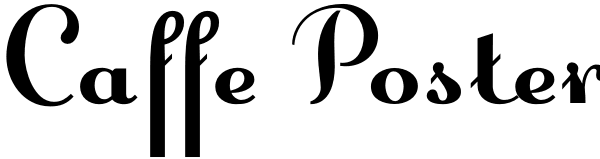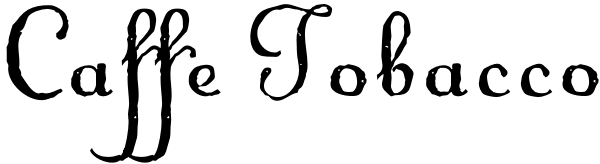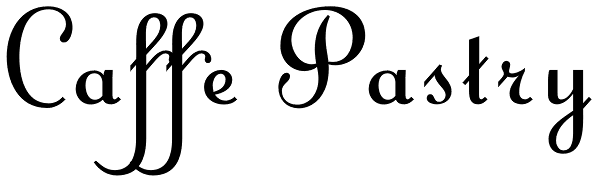
Caffe
Caffe was originally designed for the Artz Gallery Cafe in Budapest Hungary. The design is a contemporary handwriting style adapted from examples in lettering exercise books. It has been redrawn and expanded into six styles. The four weights were...
Caffe Poster
Caffe Tobacco
Caffe Poster Inline
Caffe Pastry
Caffe Lemonade
Caffe Cappuccino